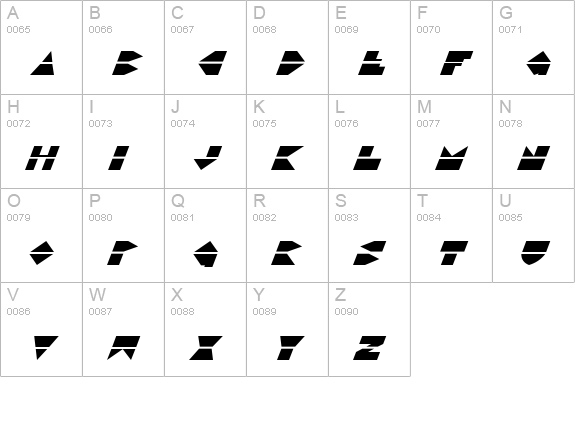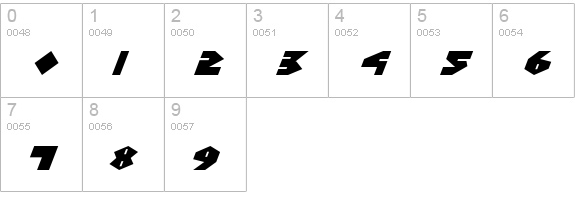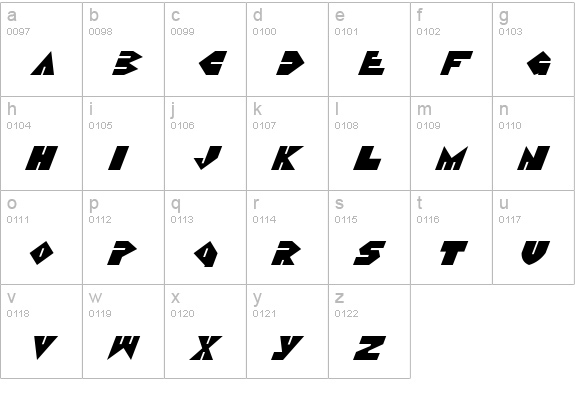
Disco Dork Italic is a distinctive, italic variant in the Disco typeface family \xE2\x80\x94 well suited to design and typography projects.
Disco Dork Italic font is a groovy and playful typeface that captures the essence of the disco era with its bold and dynamic design. The italicized style adds a touch of flair and movement to your text, making it perfect for party invitations, posters, and other fun projects. This font is available for free download at FontsMarket.com, where you can easily access and start using it in your designs. With its retro vibes and stylish aesthetic, Disco Dork Italic font is sure to bring a funky and energetic feel to your creative projects. Let your text dance and shine with this vibrant and eye-catching typeface!